Apex Type Foundry
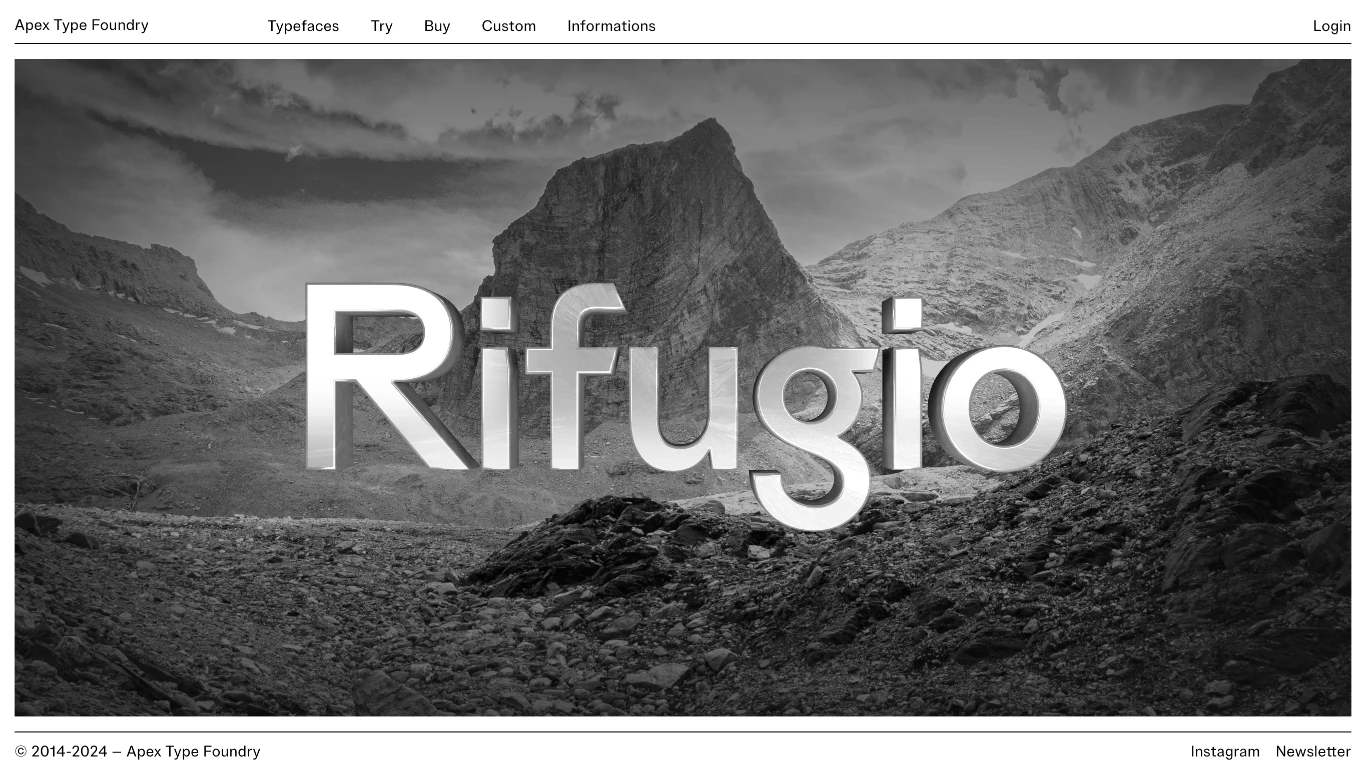
Apex Type Foundry is a digital type foundry based founded by Alex Chavot. Chavot's approach to type design is influenced by his background in graphic design, allowing for a blend of historical typography knowledge with contemporary design practices. He draws inspiration from various sources, including vernacular writing, signage, and graffiti, leading to innovative and eclectic typefaces.